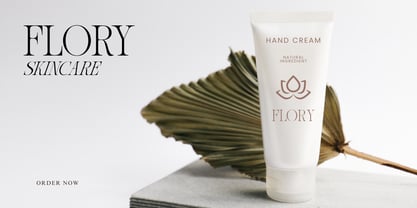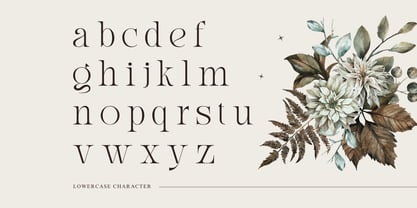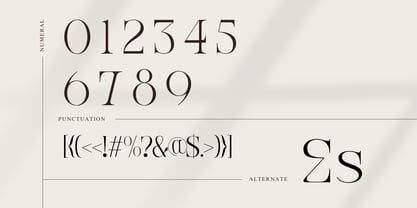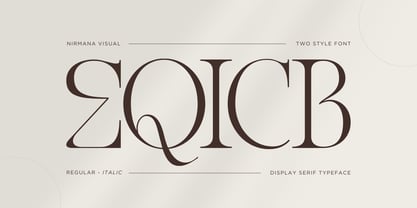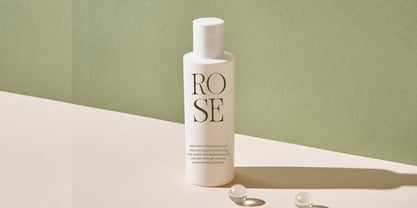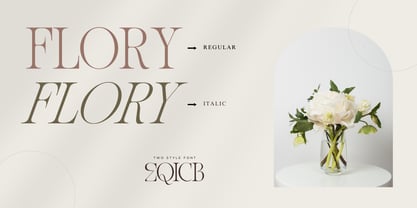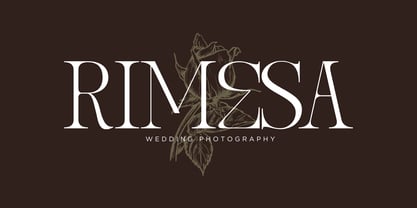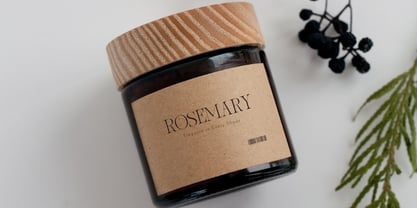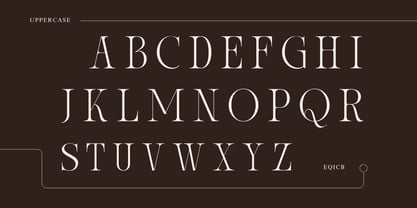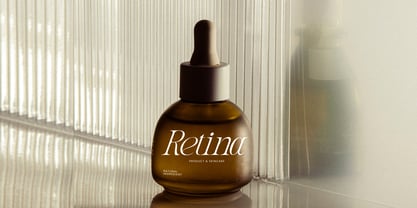
Eqicb
by Nirmana Visual
The Eqicb Font Family was designed by Sigit Dwipa and published by Nirmana Visual. Eqicb contains 2 styles and family package options. More about this family
Eqicb Font is a modern display serif typeface with an aesthetic appeal, blending elegance and contemporary design. It features high contrast strokes, smooth curves, and refined serifs, making it ideal for branding, editorial design, and luxury packaging. The font exudes in two styles Regular and Italic with sophistication while maintaining readability, perfect for high-end fashion, minimalistic logos, and stylish typography. Its versatility allows it to shine in both digital and print media, enhancing visual appeal effortlessly.
Designers: Sigit Dwipa
Foundry: Nirmana Visual